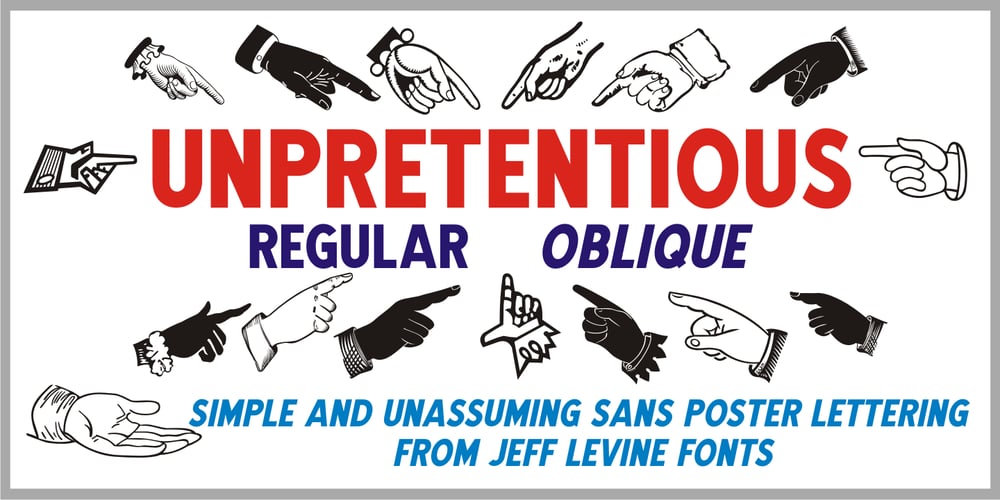
Unpretentious JNL Font Family was designed by Jeff Levine and published by Jeff Levine. Unpretentious JNL contains 2 styles and family package options. Simple, unassuming, yet fully functional in all sign, poster and headline applications is Unpretentious JNL and its oblique counterpart. Where plain, bold titling is necessary, this typeface will draw attention to the message with minimum effort.